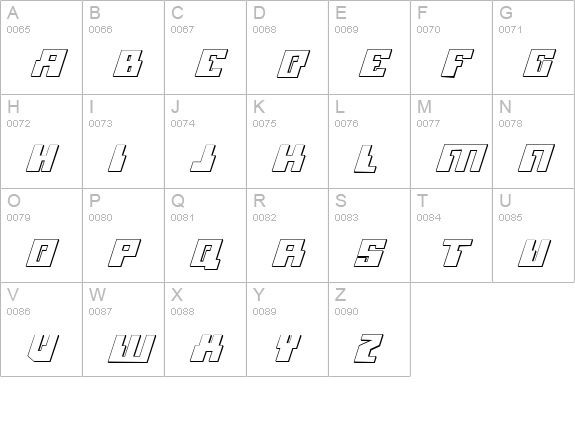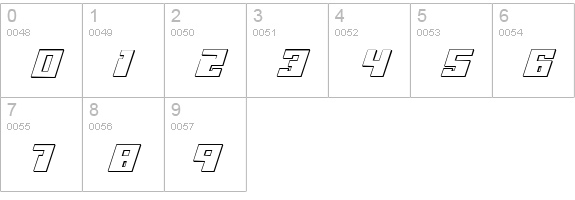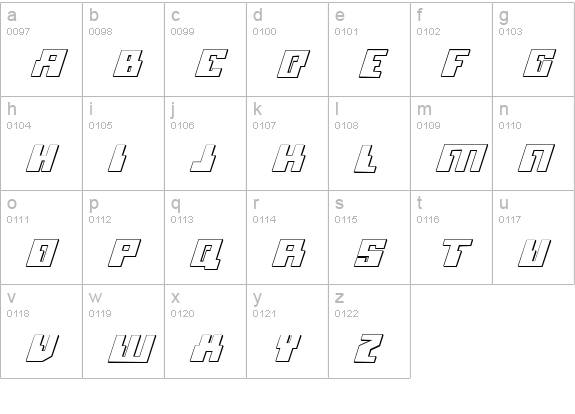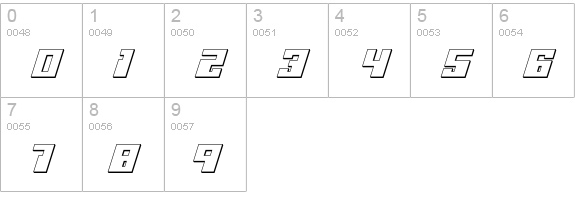
Micronian 3D Italic is a distinctive, italic variant in the Micronian typeface family \xE2\x80\x94 well suited to design and typography projects.
Introducing the captivating and modern Micronian 3D Italic font! With its sleek design and dynamic angles, this font exudes a sense of sophistication and creativity that is perfect for a wide range of design projects. The italicized style adds a touch of elegance, making it ideal for branding, advertising, and digital creations. What sets Micronian 3D Italic font apart is not only its striking appearance but also its accessibility - it is available for free download at FontsMarket.com. This means that you can easily incorporate this eye-catching font into your projects without any cost, making it a valuable asset for designers and creatives looking to elevate their work. Whether you're working on a logo, website, poster, or any other design project, Micronian 3D Italic font is sure to make a lasting impression. Embrace its sleek lines and contemporary feel to bring your creations to the next level. Download this versatile font today and unleash your creativity with Micronian 3D Italic!